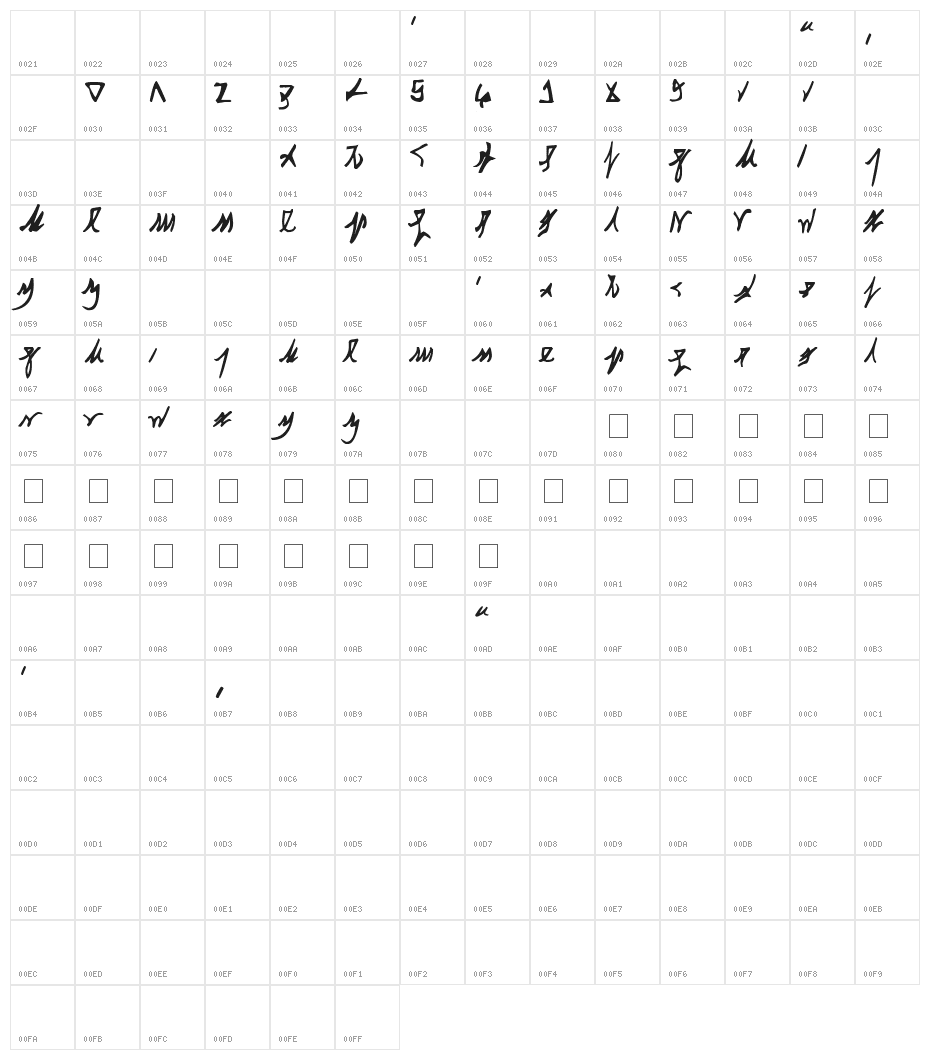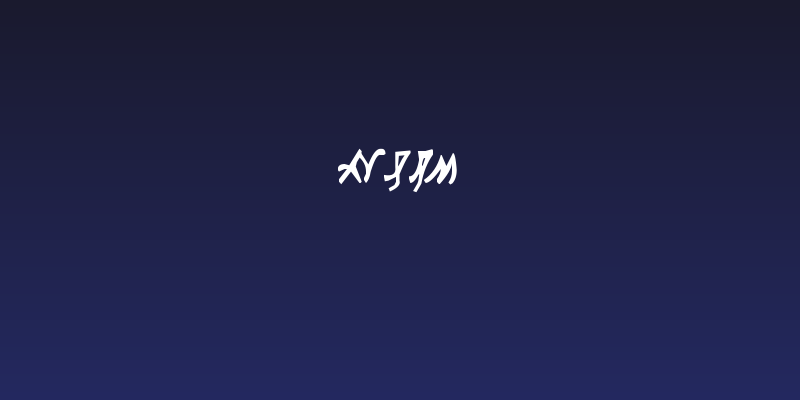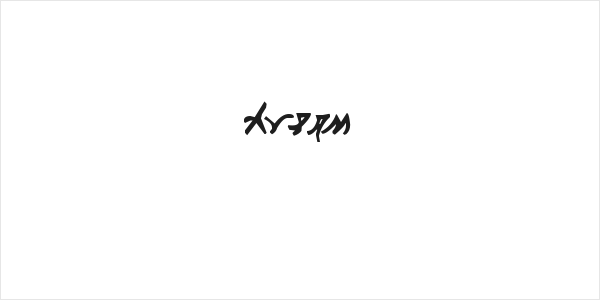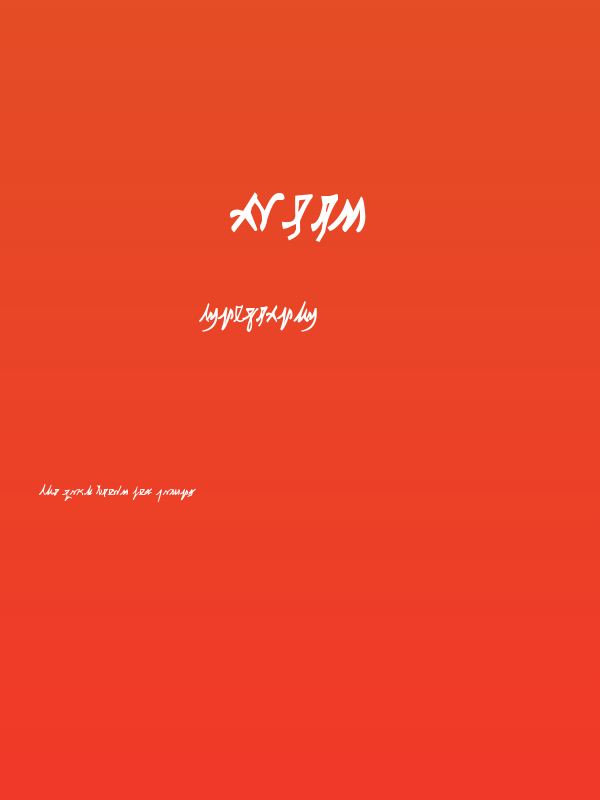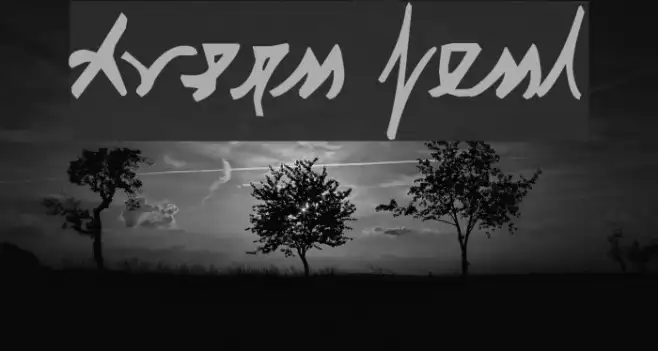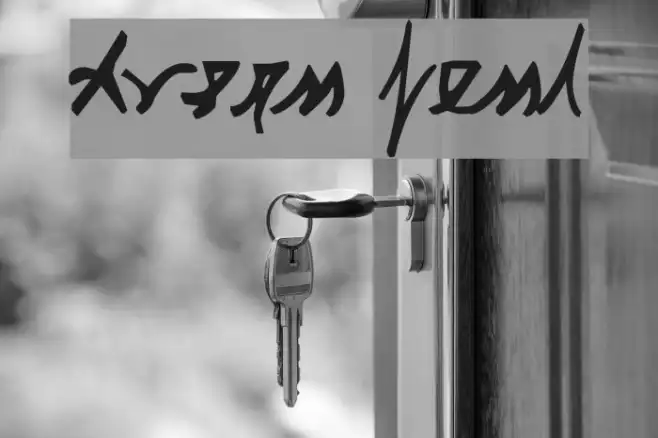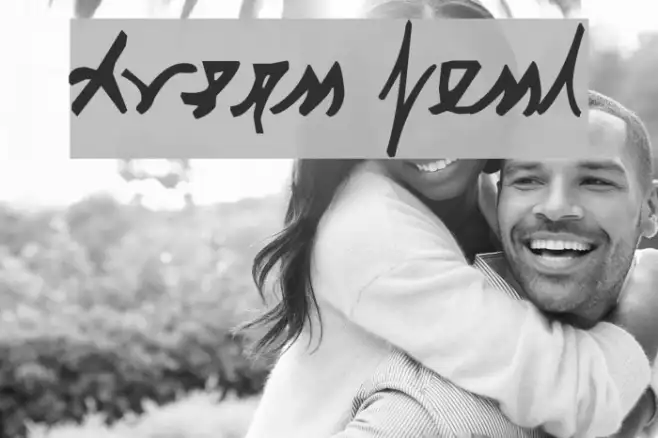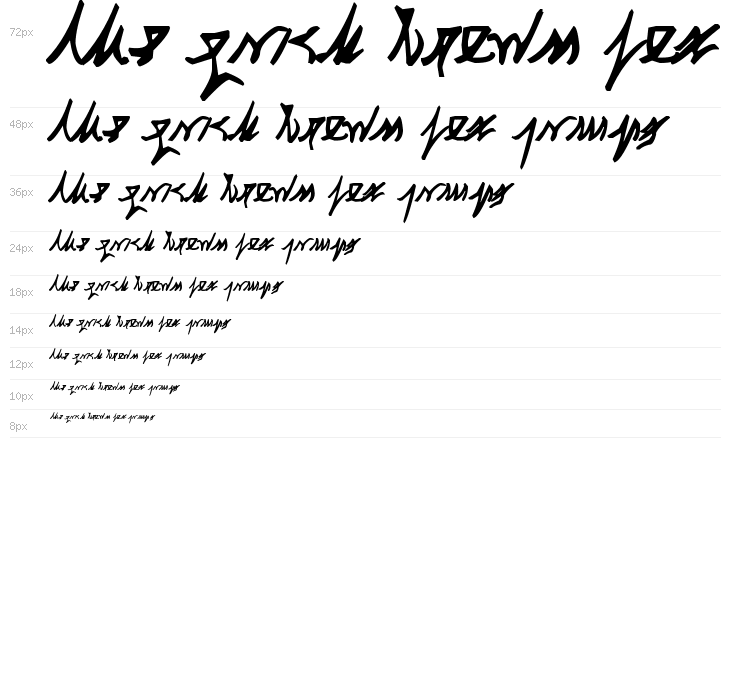
Avern Font
Avern Description
This font features a highly stylized and abstract design, reminiscent of a handwritten script with a modern twist. The characters are fluid and dynamic, with sharp angles and unique curves that create an energetic and artistic appearance. The uppercase and lowercase letters blend seamlessly, maintaining a consistent flow throughout the text. Numbers and special characters follow the same design principles, adding to the font's cohesive look. The overall impression is one of creativity and expressiveness, making it suitable for projects that require a bold and unconventional style.
| Use Case | Logos, Artistic projects, Creative branding |
| Proposed Projects | Ideal for artistic projects, creative branding, unique invitations, and modern art pieces. |